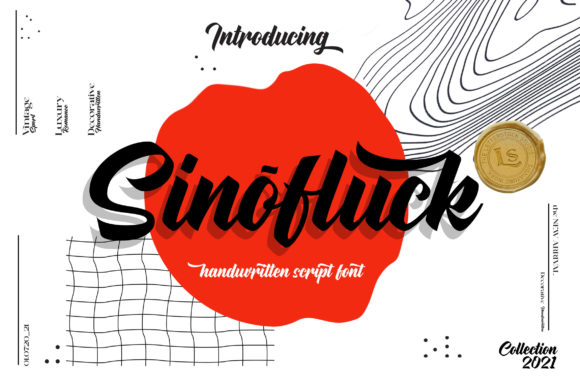
Journey back to the charm of days gone by with Sinofluck, a stunning script font that evokes the timeless beauty of hand embroidery. Crafted with meticulous care by the talented Gumacreative, this font radiates a delightful retro charm that will add a touch of nostalgia and elegance to your designs.
Immerse yourself in the intricate details of Sinofluck, where each letter seems to dance across the page like a delicate thread. Its strong, confident strokes convey a sense of unwavering determination, while its dynamic curves bring a sense of movement and energy to your creations.
Whether you're crafting eye-catching headlines or designing distinctive logotypes, Sinofluck will elevate your work with its timeless style. Its unique character shines through in every project, adding a touch of warmth and personality that will capture the attention of your audience.
Sinofluck isn't just a font; it's an experience. It transports you back to a simpler time, where the art of hand embroidery was a cherished tradition. Let your imagination soar as you create designs that exude a sense of heritage and craftsmanship.
With Sinofluck, you're not just downloading a font; you're embarking on a journey through time, where the past meets the present in a harmonious blend of beauty and innovation. Embrace the charm of hand embroidery and let Sinofluck guide you towards creating captivating designs that leave a lasting impression.